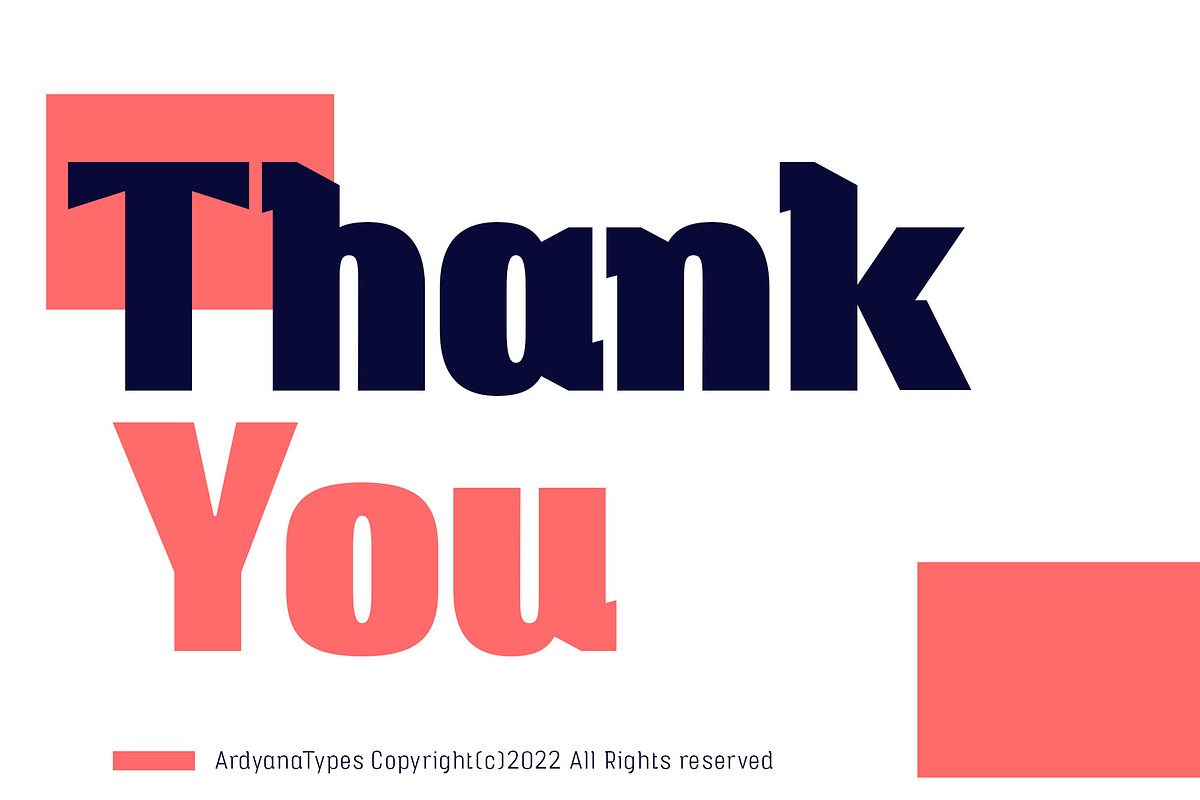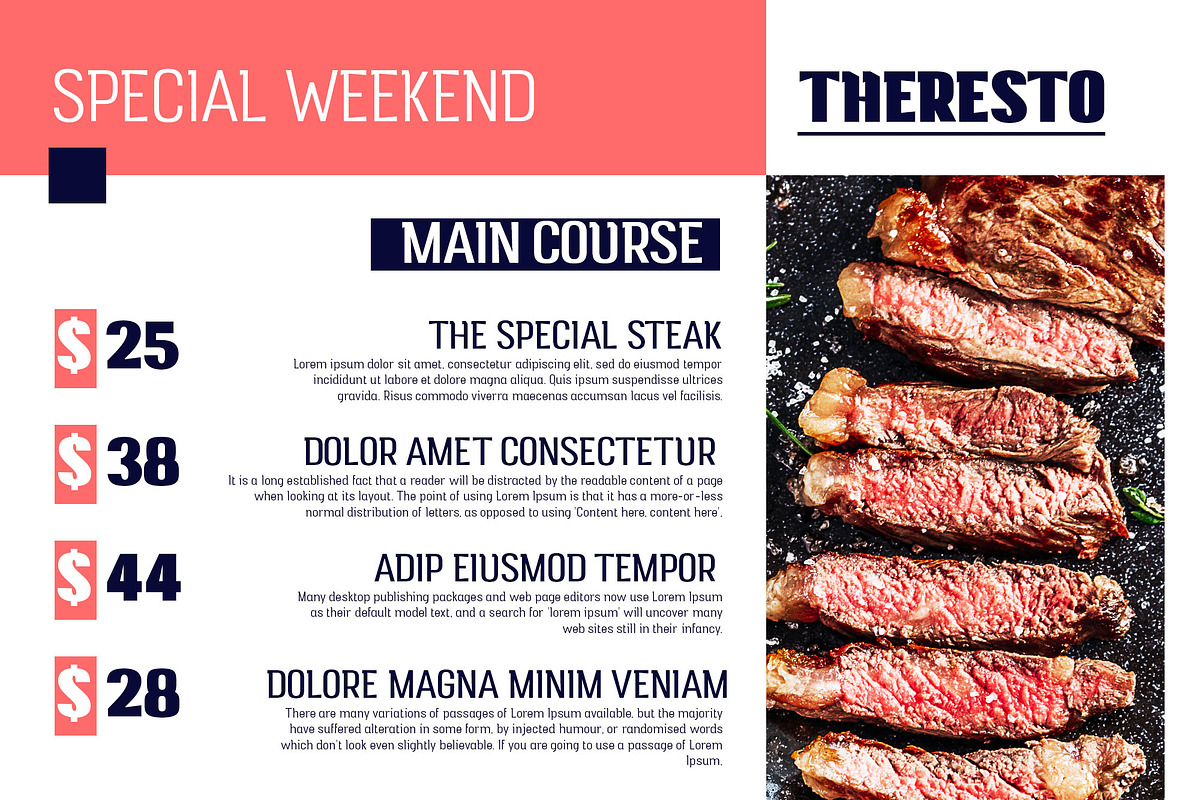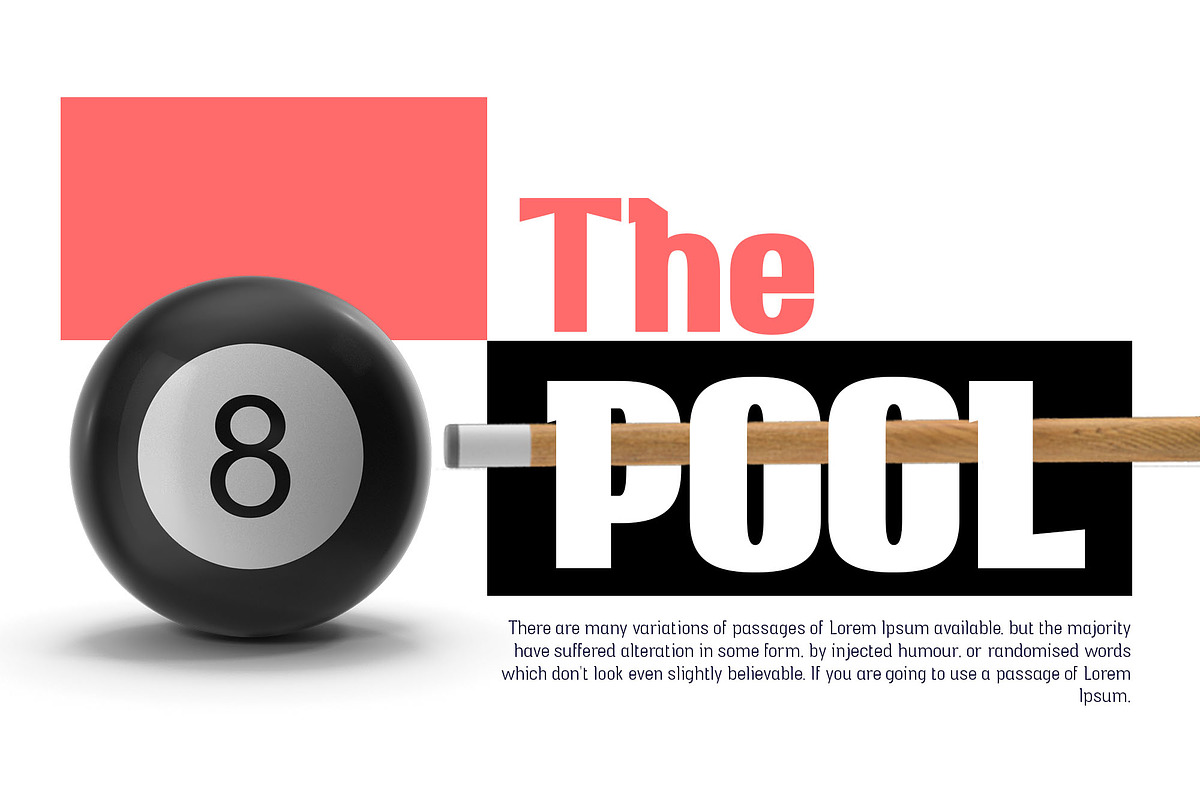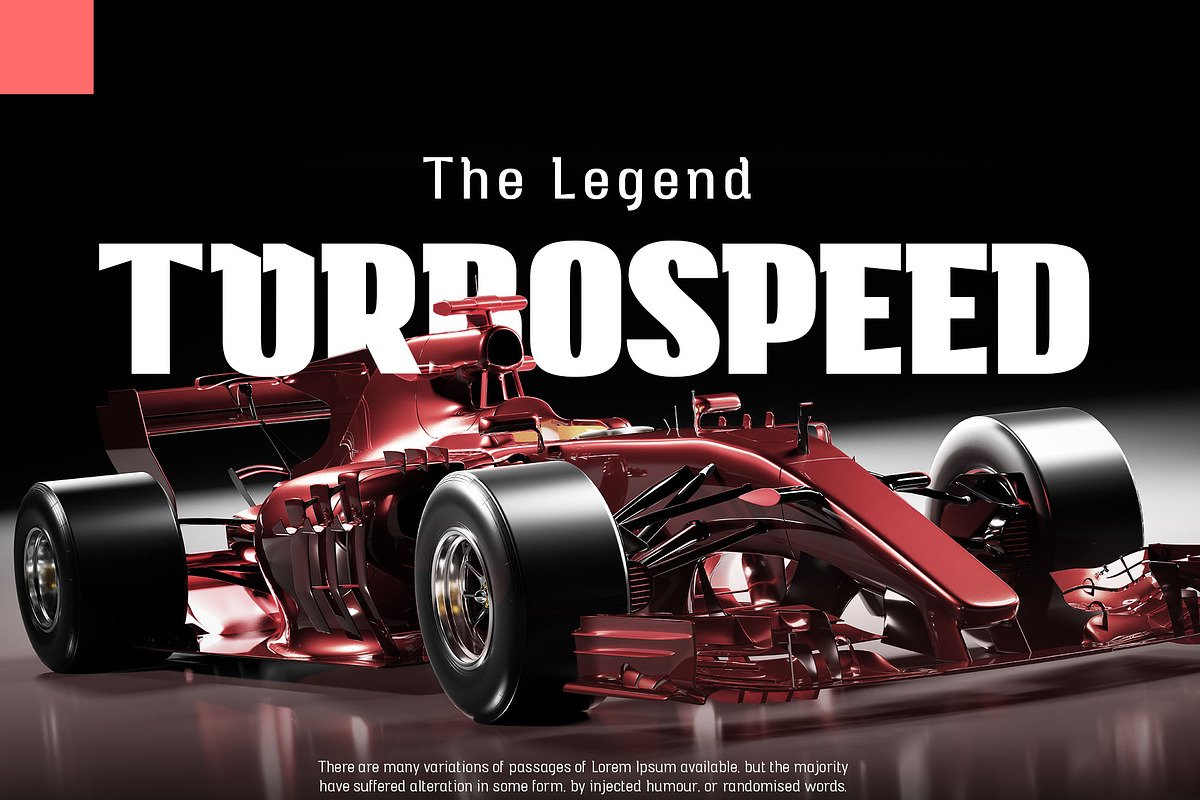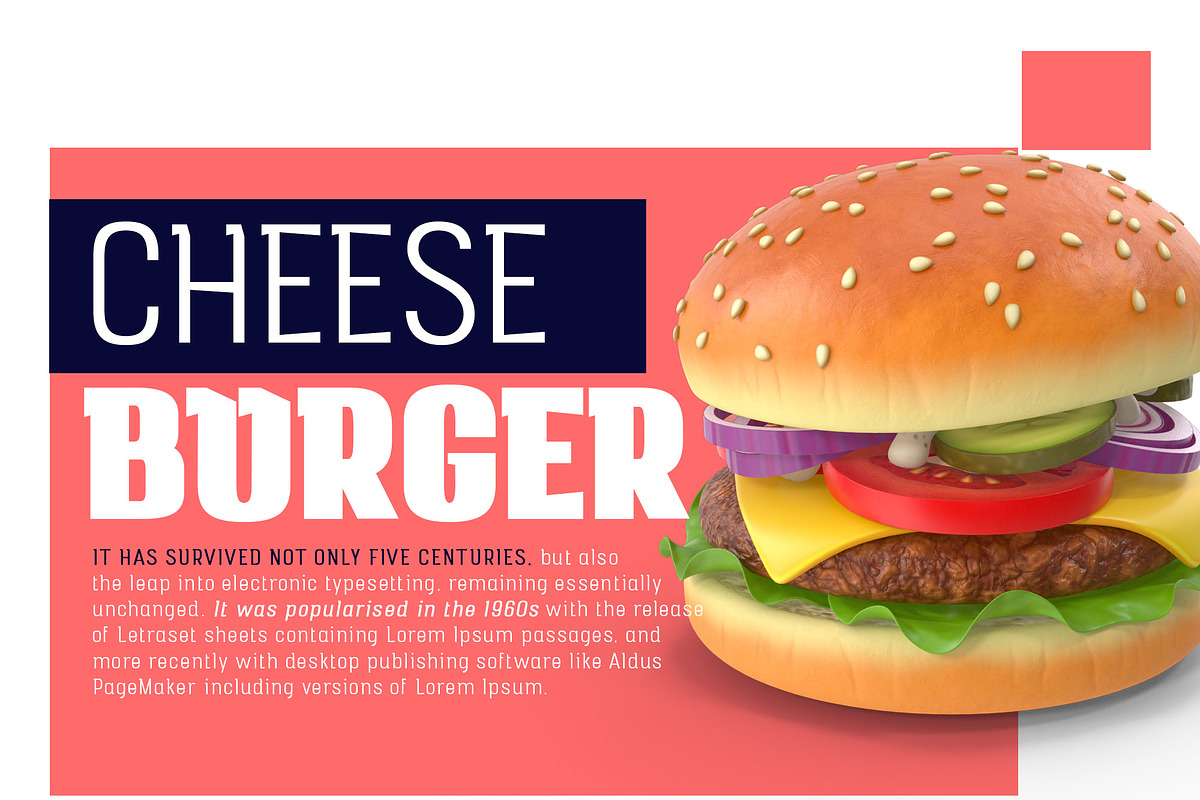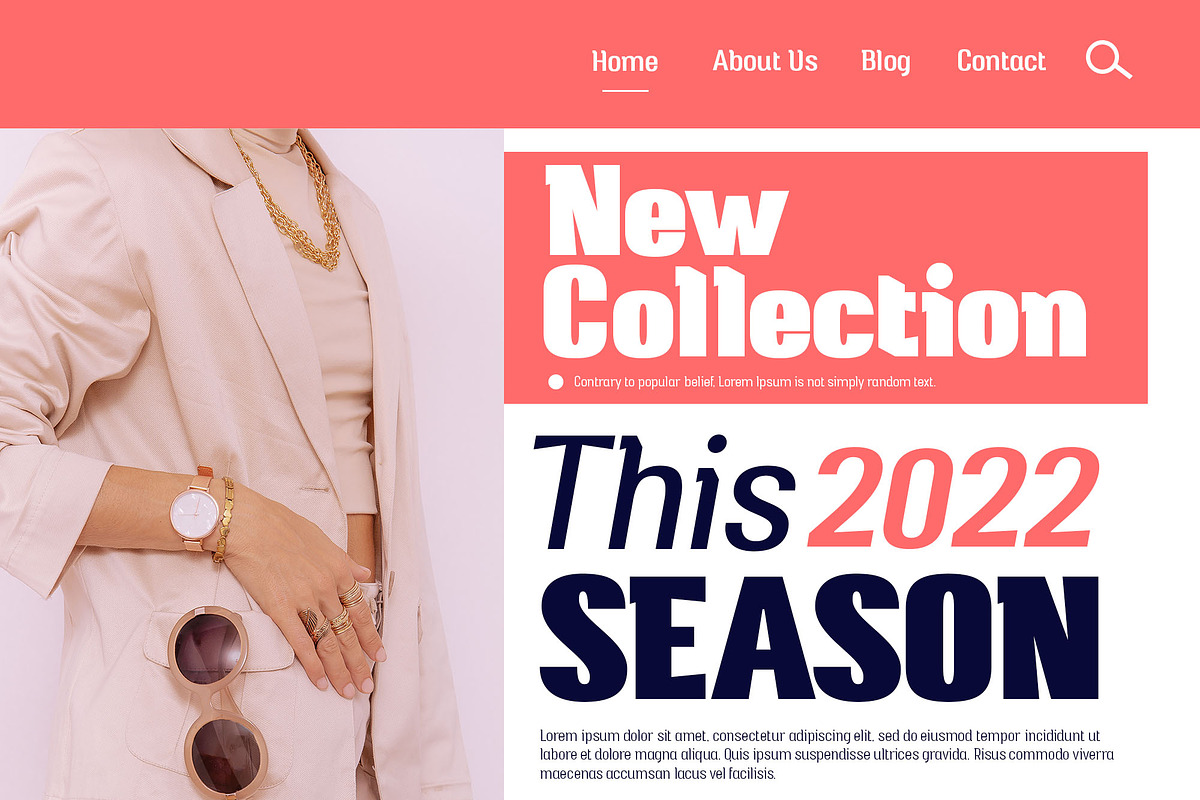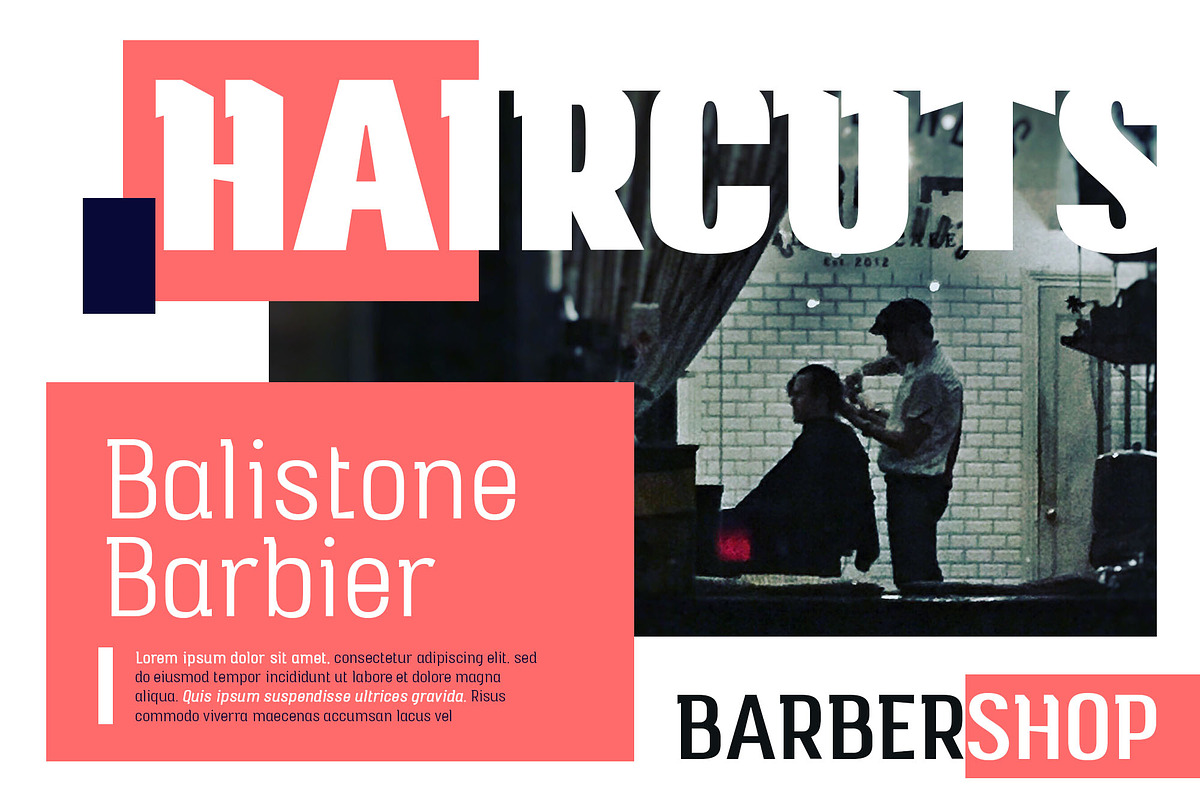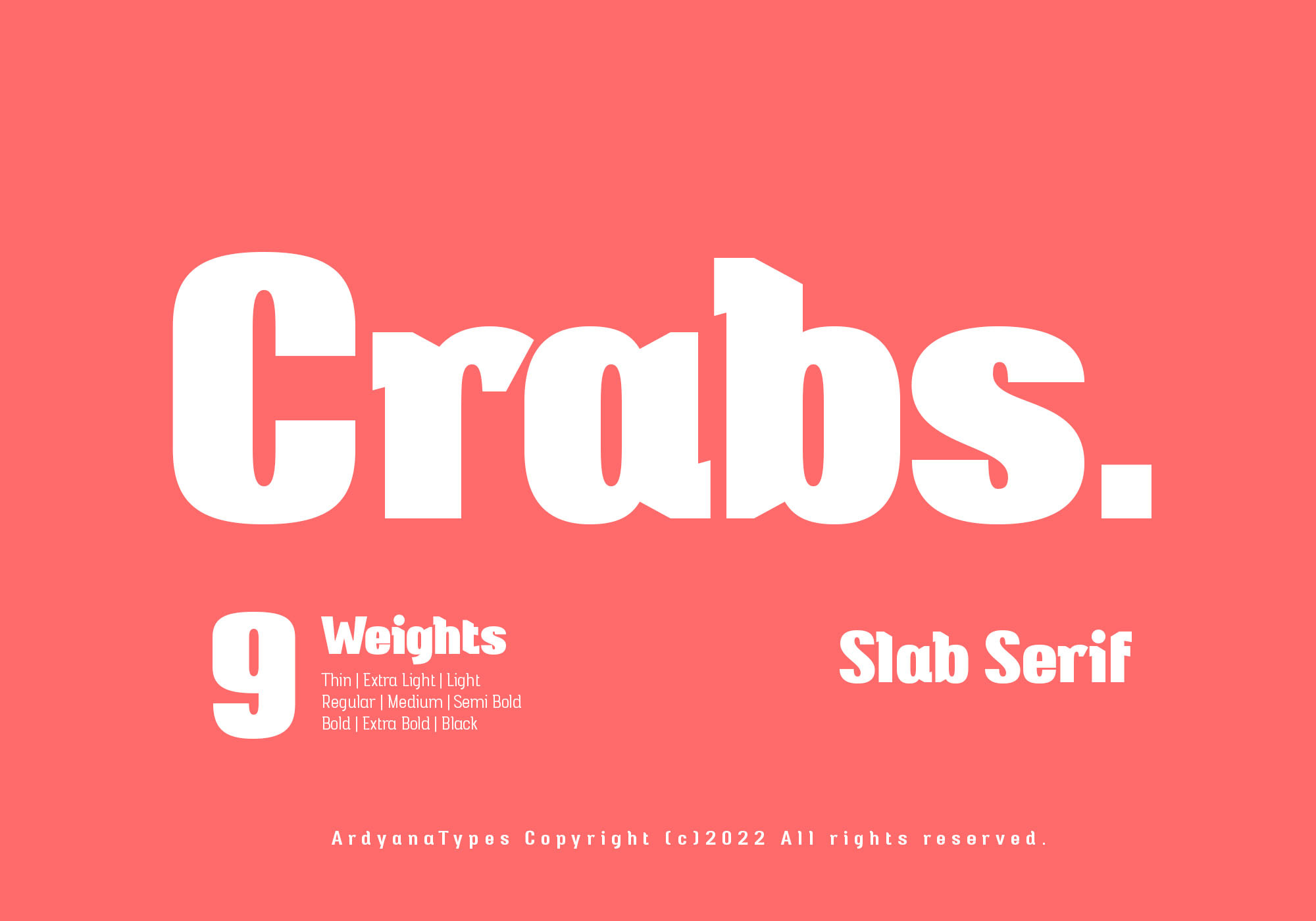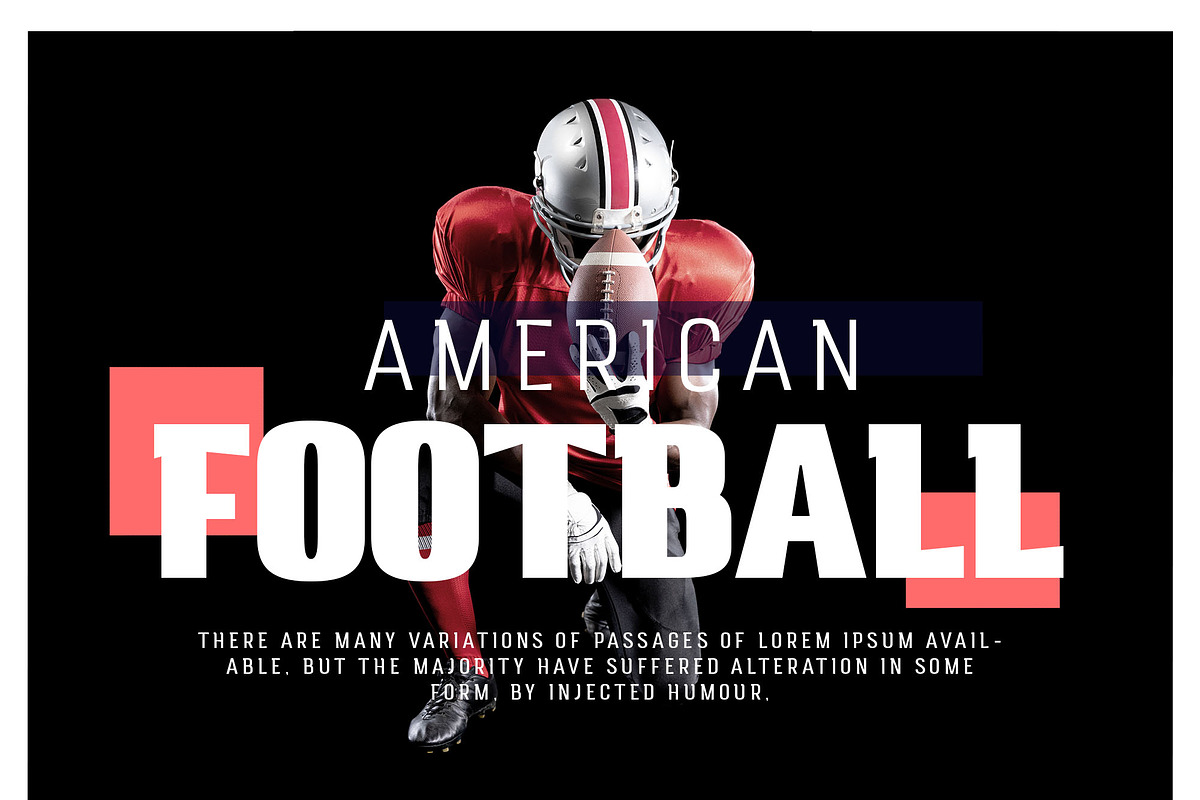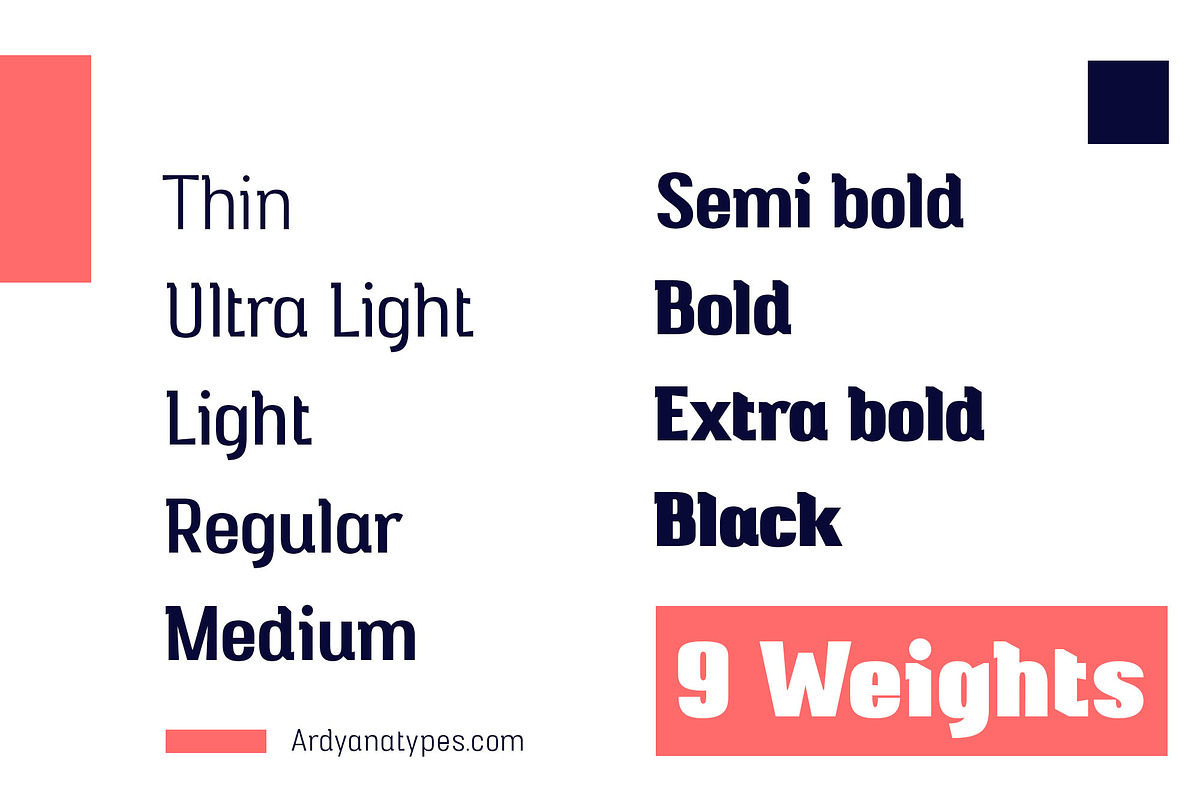
Crabs Slab Serif Font
Crabs Slab Comes with a Slab Serif style typical of sturdy and elegant typography, which gives a modern, retro, and classic style but has a unique and elegant style that gives an extraordinary impression. Crabs Slab also comes with multiple languages enabling Crabs Slab to be used in all your projects. Crabs Slab is very suitable for use in various purposes or projects, including Sports, Posters, Products, Logos, Branding, and many more that you can apply with this Crabs Slab Typeface.